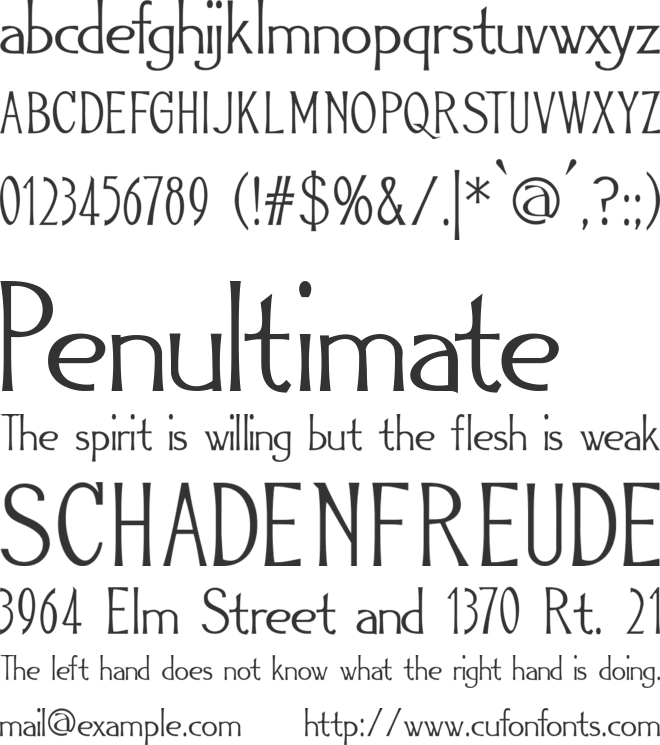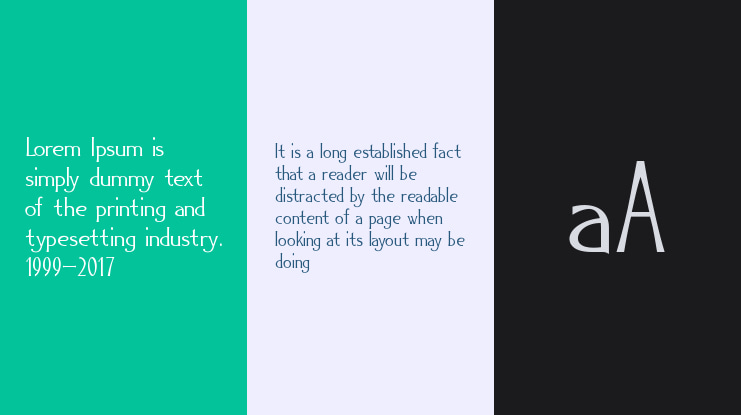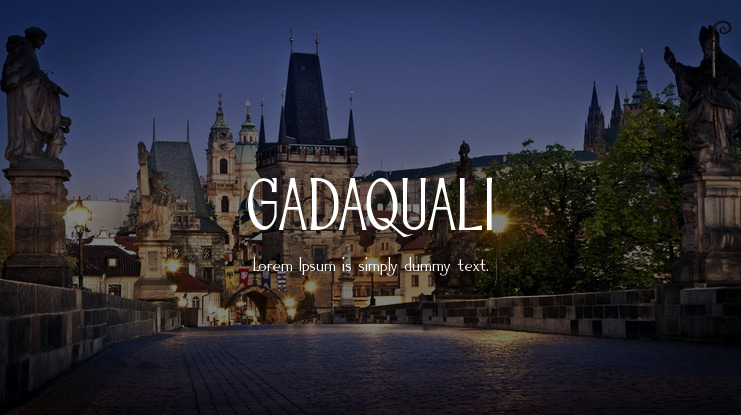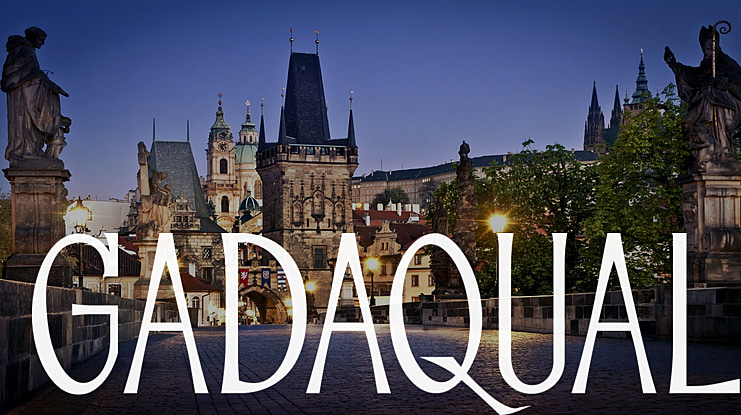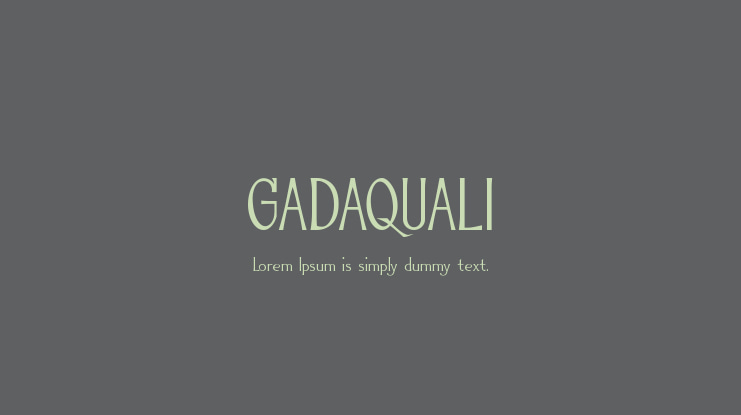
GADAQUALI Font
This is a Cherokee Unicode typeface. GADAGUALI means clay in Cherokee. It was my intention to create a small serif font that is elegant and distinct but not too different from what you see. The Cherokee syllables "O","Mo" and "Yi" have a curvy pottery feel this along with the total feel of the font is something i like.